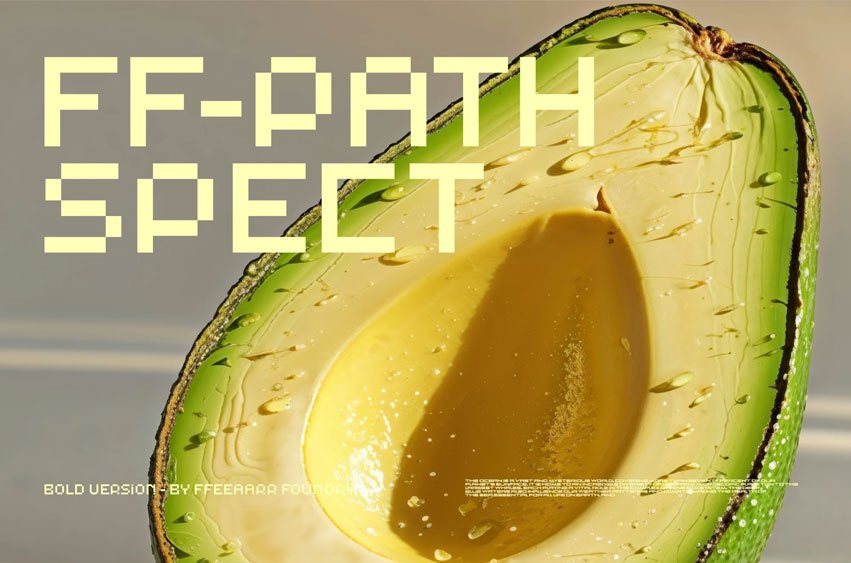
Path Spect Font serves as a bridge between the physical world of playground equipment and the ethereal realm of virtual reality, providing a high-contrast, high-energy reading experience that transforms standard text into a celebratory invitation to explore the mechanics of fun.